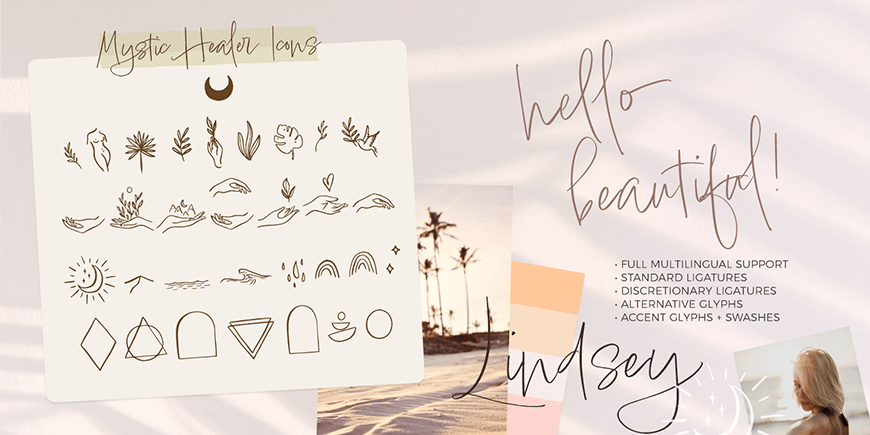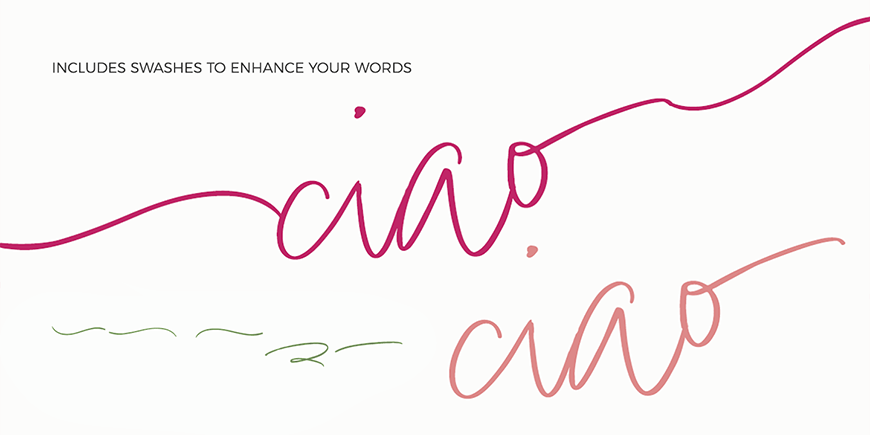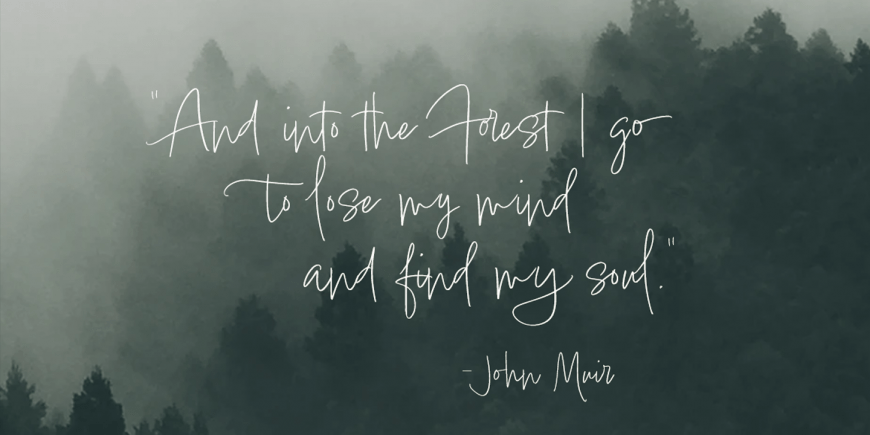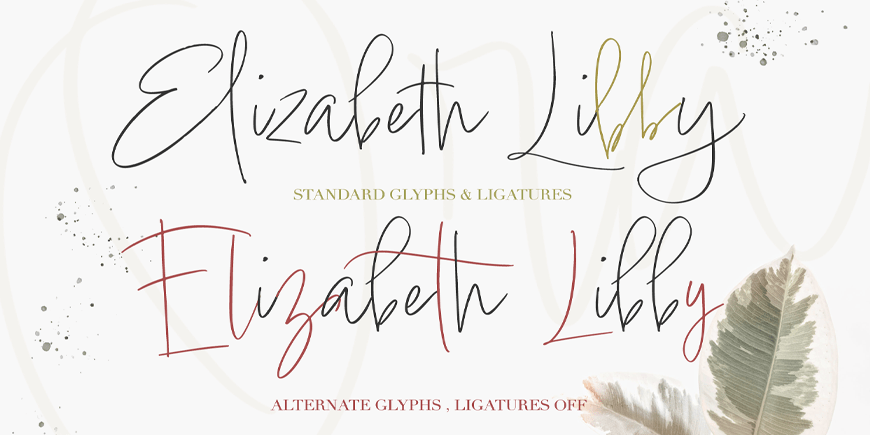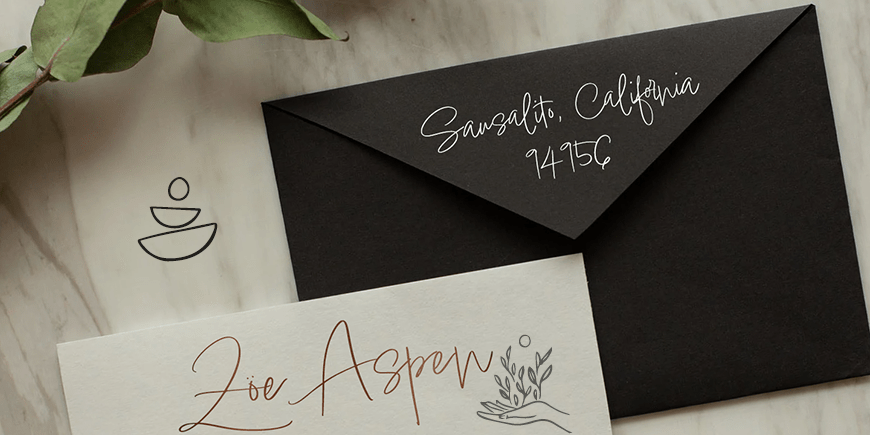
Lindsey Signature is a casual script font mimicking the spirit & style of natural handwriting. Opentype features include ligatures and alternate glyphs which add to it's personality and authenticity to your words. Plus a new bonus icon set. It's…